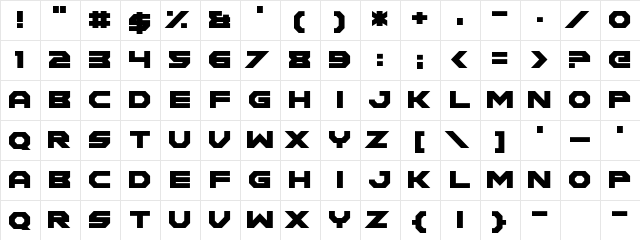
Maiden Crimes Regular
Design Context for Maiden Crimes Typeface
Maiden Crimes is a composed and adaptable typeface that performs quietly and consistently across a wide range of design contexts.